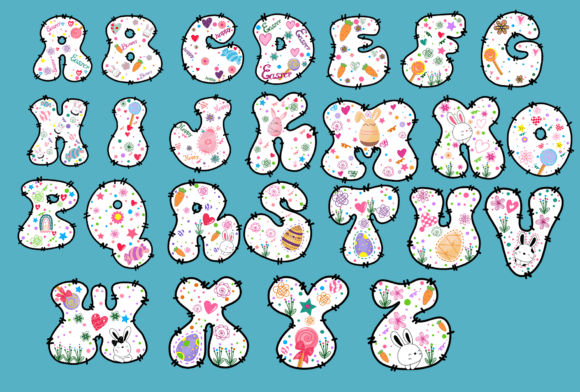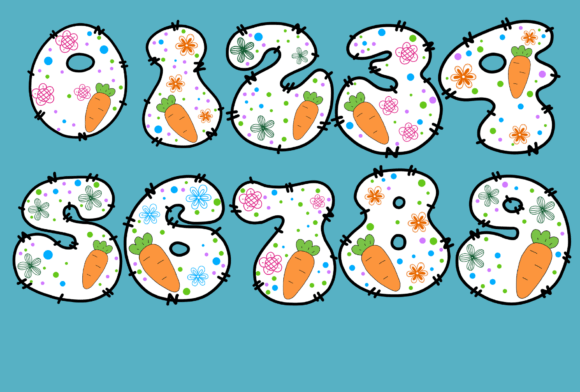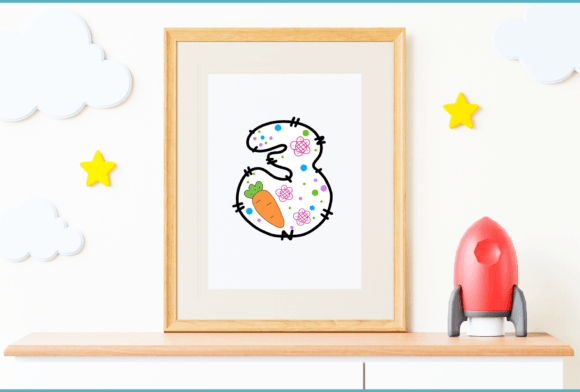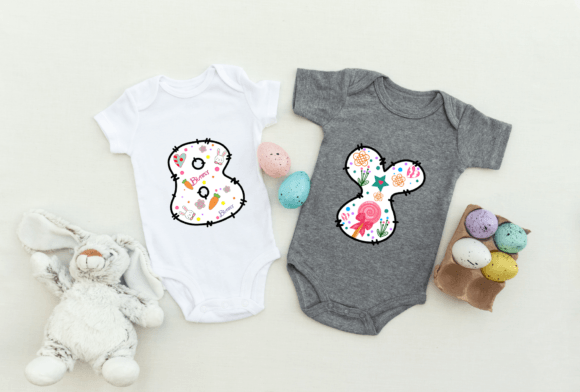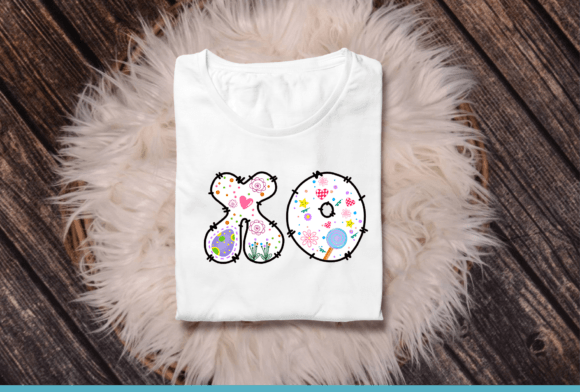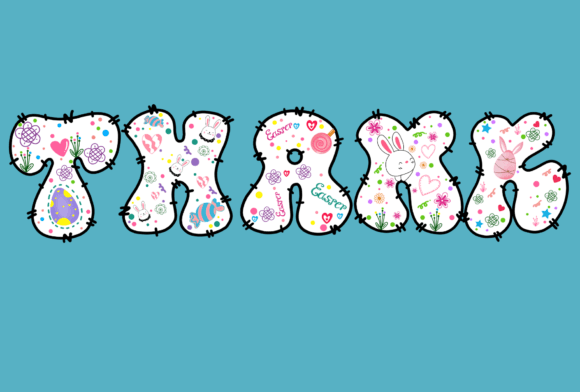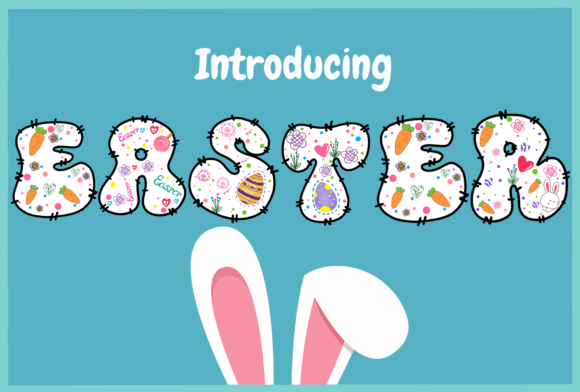
Introducing the Adorable Easter Font: Add a Touch of Whimsy to Your Easter Projects
Are you looking for a unique and playful way to add some Easter cheer to your designs? Look no further than the Easter font! This quirky display font is filled with tiny Easter-themed elements, from bunnies to eggs and flowers, making it perfect for crafters and designers alike. In this article, we’ll dive into the details of this charming font and explore how you can use it to create adorable Easter projects.
What is the Easter Font?
The Easter font is a one-of-a-kind display font that is sure to hop its way into your heart. Each letter of this font is carefully crafted with tiny Easter-themed elements, making it a standout addition to any design. From bunnies and eggs to flowers and more, every detail is meticulously designed to bring a touch of whimsy to your projects.
Features of the Easter Font
- Unique Easter-themed elements: Each letter of the Easter font is filled with tiny Easter-themed elements, making it perfect for Easter-themed designs.
- Playful design: The Easter font has a playful design that is sure to add a touch of whimsy to your projects.
- Charming details: Every detail of the Easter font is meticulously designed to bring a touch of charm to your designs.
- Perfect for crafters and designers: The Easter font is perfect for crafters and designers looking to add a unique touch to their Easter projects.
How to Use the Easter Font
The Easter font is easy to use and can be incorporated into a variety of Easter-themed projects. Here are a few ideas to get you started:
- Easter cards and invitations: Use the Easter font to create adorable Easter cards and invitations that are sure to delight.
- Easter-themed crafts: Add a touch of whimsy to your Easter-themed crafts, such as Easter egg decorations and bunny-themed DIYs.
- Easter social media graphics: Use the Easter font to create eye-catching social media graphics that are sure to hop their way into your followers’ feeds.
- Easter party decorations: Create adorable Easter party decorations, such as banners and garlands, using the Easter font.
Tips for Getting the Most Out of the Easter Font
Here are a few tips for getting the most out of the Easter font:
- Experiment with different colors: Try out different colors and color combinations to see what works best with the Easter font.
- Mix and match with other fonts: Combine the Easter font with other fonts to create a unique and eye-catching design.
- Use it sparingly: Use the Easter font sparingly to add a touch of whimsy to your designs without overwhelming them.
The Easter font is a unique and playful way to add some Easter cheer to your designs. With its quirky design and charming details, it’s perfect for crafters and designers looking to create adorable Easter projects. Whether you’re creating Easter cards and invitations, Easter-themed crafts, or Easter social media graphics, the Easter font is sure to hop its way into your heart. So why wait? Get hopping and try out the Easter font today!